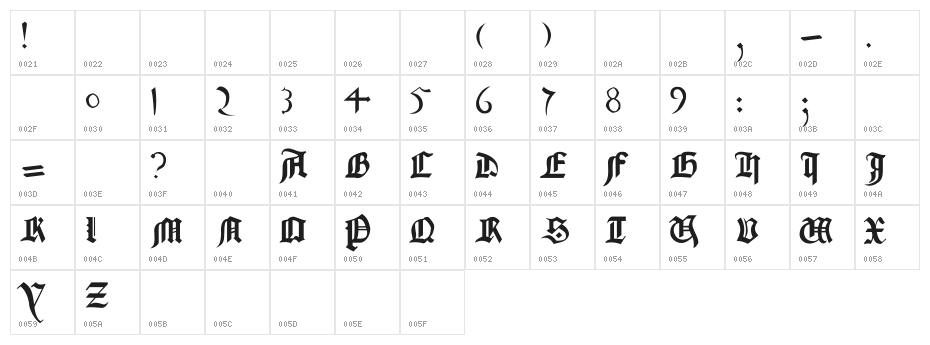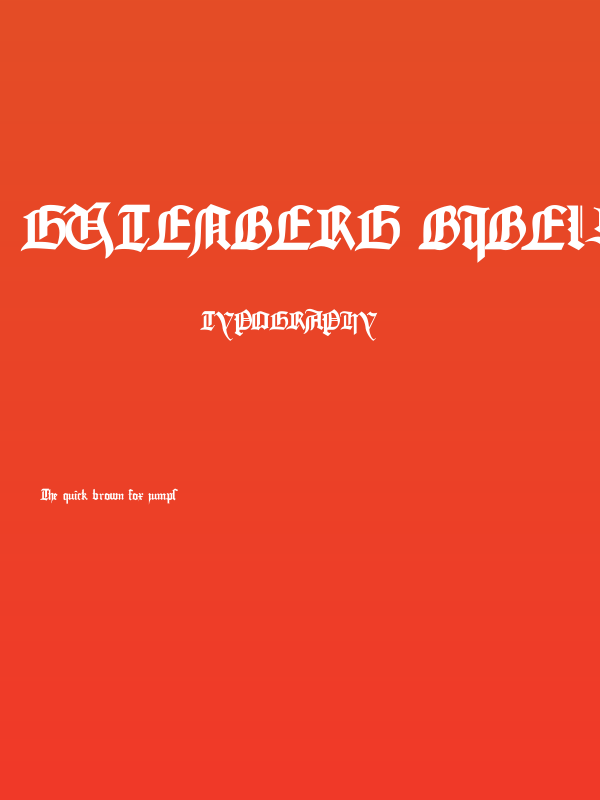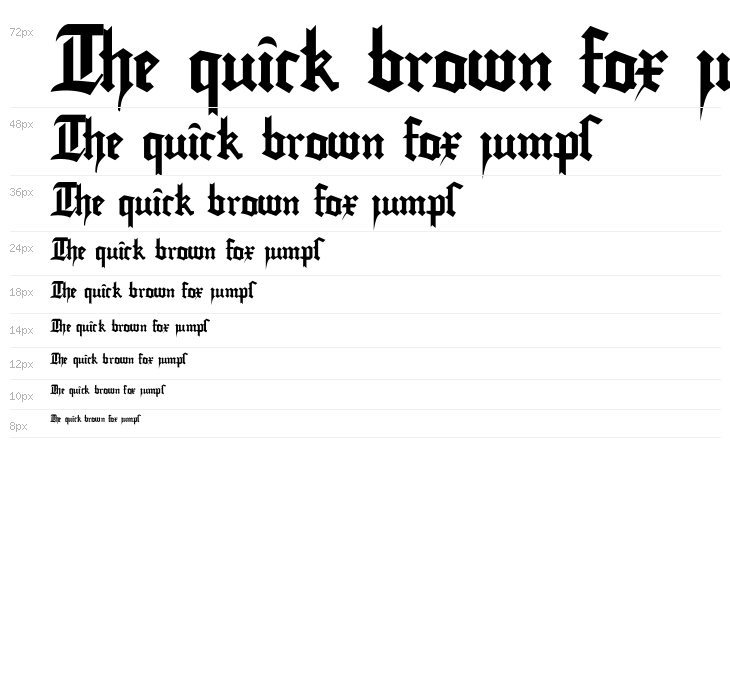
gutenberg bibelschrift Font
gutenberg bibelschrift Description
This font is a classic representation of the Blackletter style, reminiscent of the type used in the Gutenberg Bible. It features intricate, angular strokes with a high level of detail and ornamentation. The uppercase letters are particularly elaborate, with sharp serifs and decorative elements that give them a majestic and historical appearance. The lowercase letters maintain the same level of detail, with a consistent stroke width that enhances readability despite the complex design. Numbers and special characters are equally ornate, fitting seamlessly with the overall aesthetic. This font evokes a sense of tradition and history, making it ideal for projects that require a touch of the medieval or gothic.
| Use Case | Headlines, Logos, Decorative text |
| Proposed Projects | Ideal for historical documents, book covers, certificates, and branding that requires a medieval or gothic touch. |